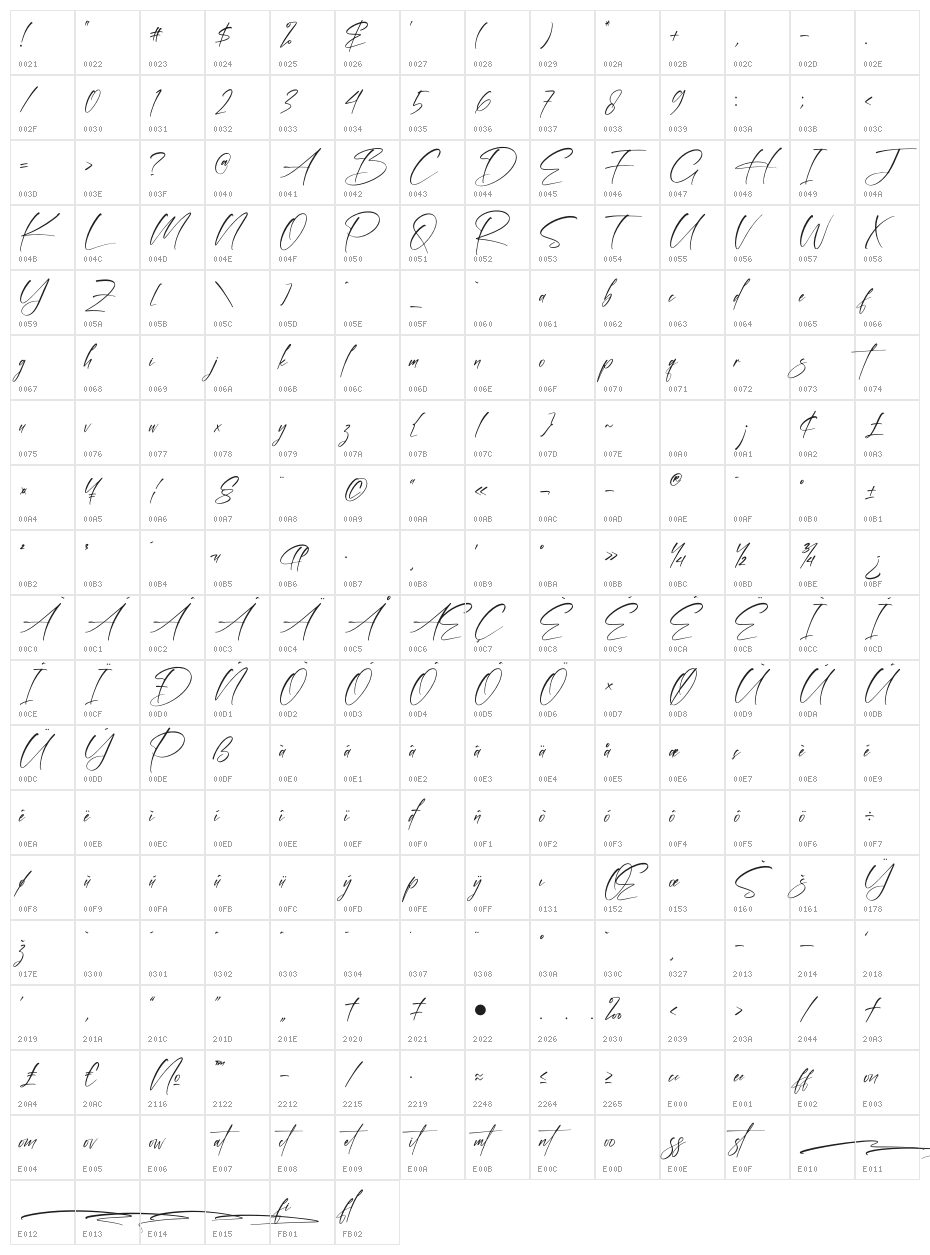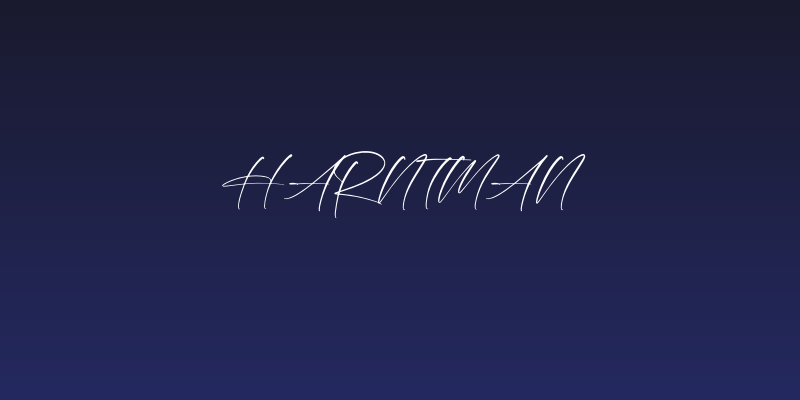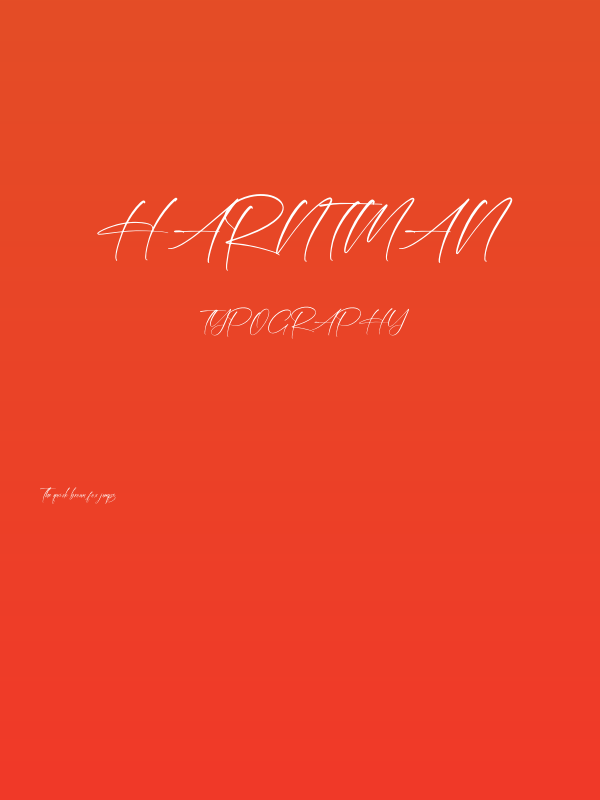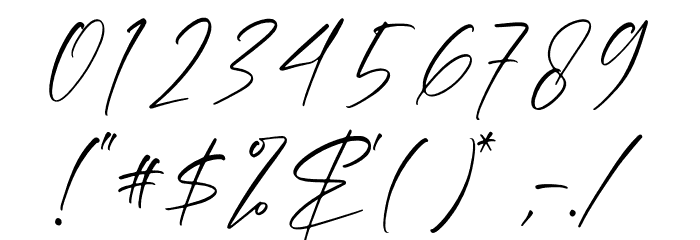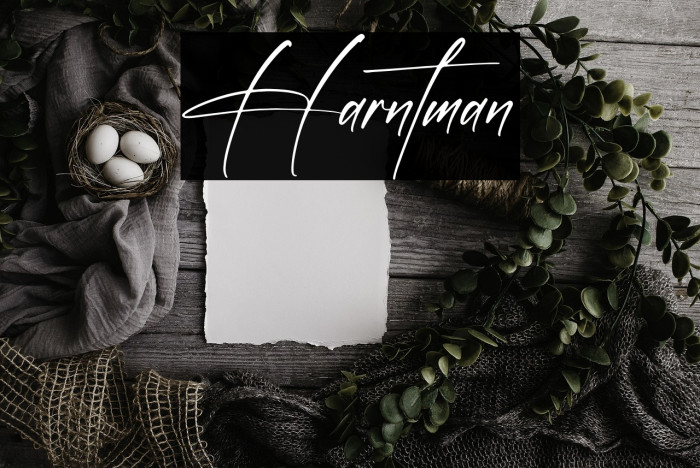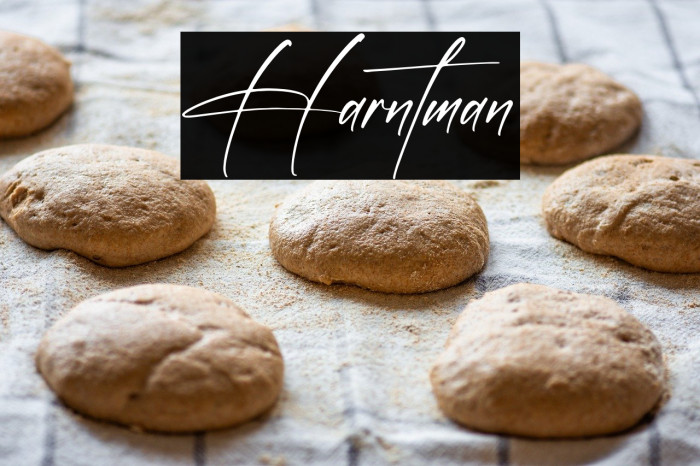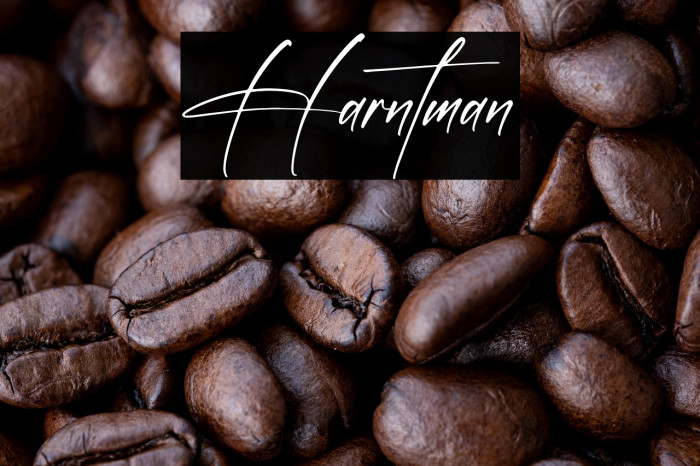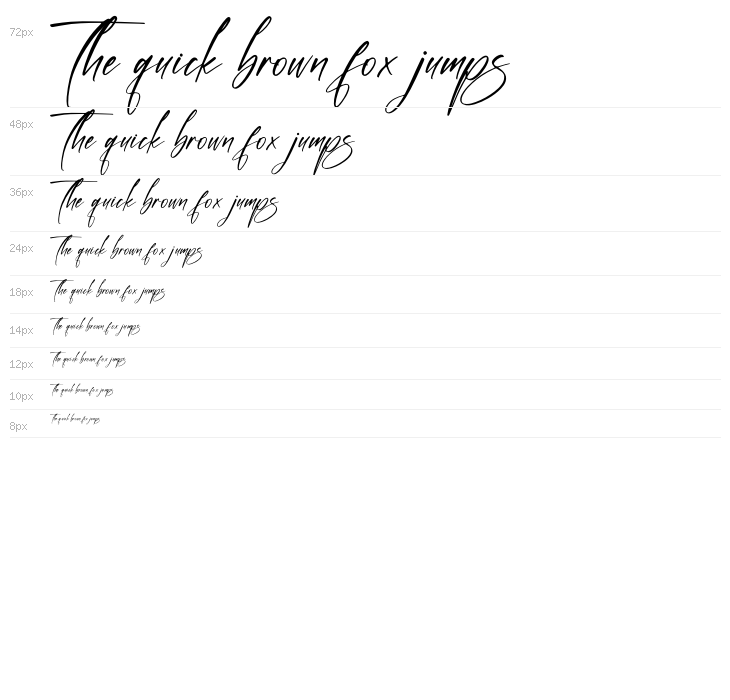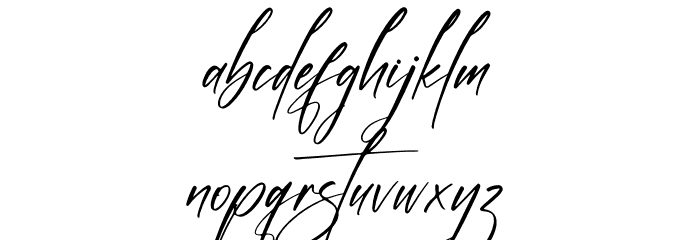
Harntman Font
Harntman Description
This font features an elegant, flowing script style with a modern touch. The uppercase letters are tall and slender, with graceful curves and a slight slant, giving them a sophisticated appearance. The lowercase letters maintain a consistent style, with smooth, connected strokes that enhance readability while preserving the font's artistic flair. Numbers and special characters are designed to complement the overall aesthetic, featuring similar curves and a balanced weight. The font's delicate lines and stylish form make it suitable for a variety of creative applications.